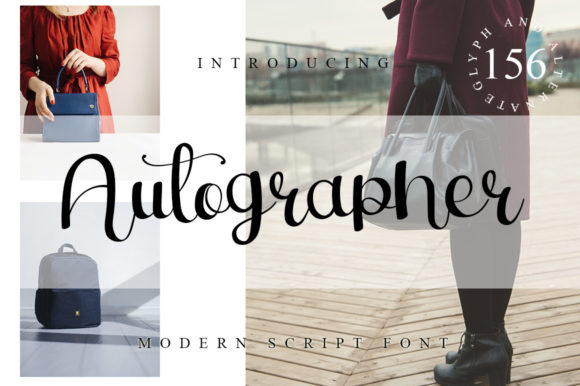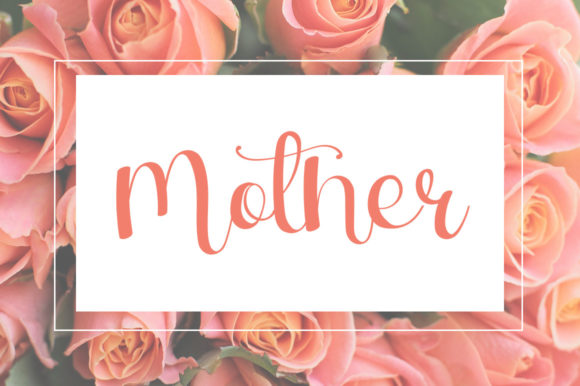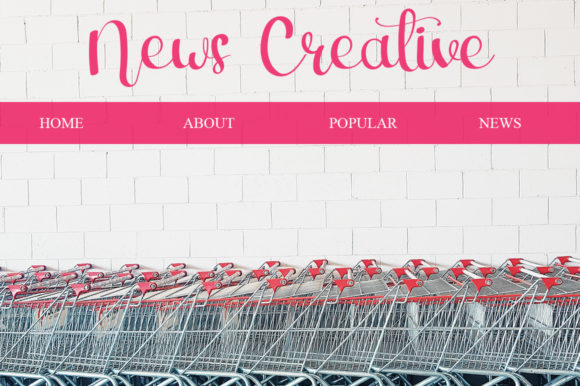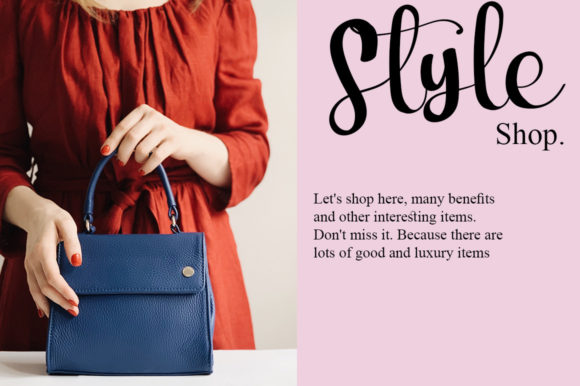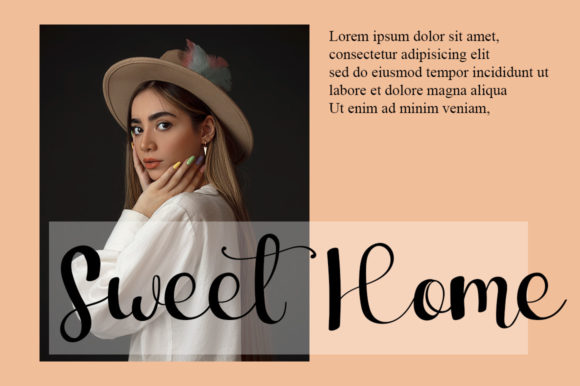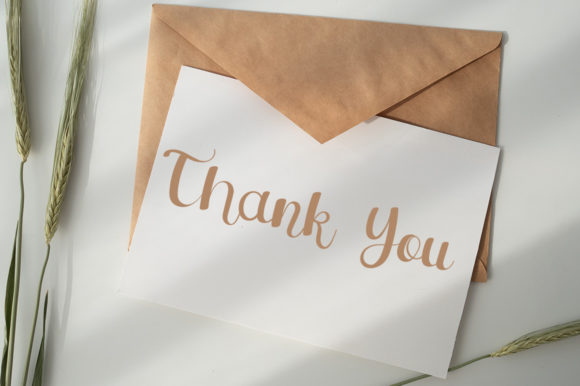
About Autographer Font
Autographer is a lovely and delicate script font that exudes elegance and class. This font was particularly crafted for those who need a beautiful and refreshing look to their designs.